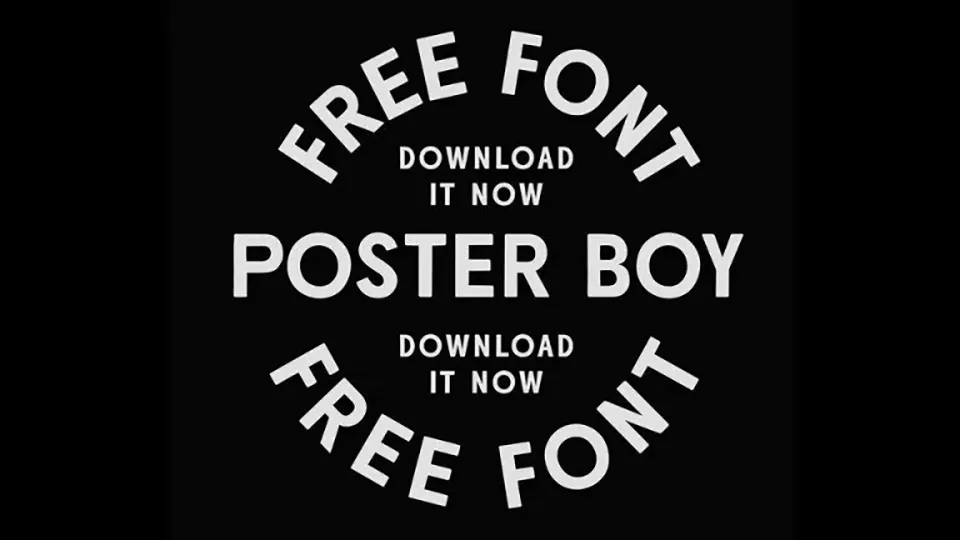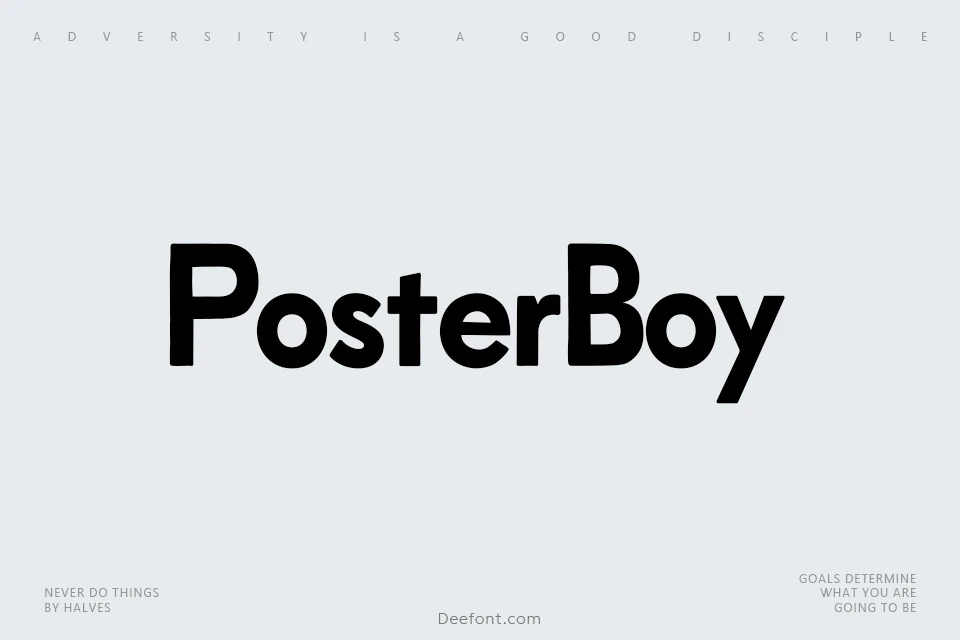
Poster Boy Font
Poster Boy Font is a bold, attention-grabbing typeface ideal for making a statement. With its strong, clean lines and blocky letterforms, it’s perfect for headlines, posters, and any design that needs to stand out. This font exudes confidence and is highly readable, ensuring your message is delivered with impact. Its simplicity and versatility make it suitable for a wide range of projects, from modern advertising to vintage-inspired designs. If you’re looking for a font that commands attention and leaves a lasting impression, Poster Boy is an excellent choice.